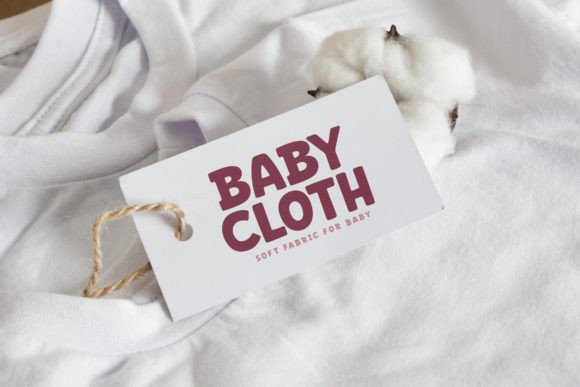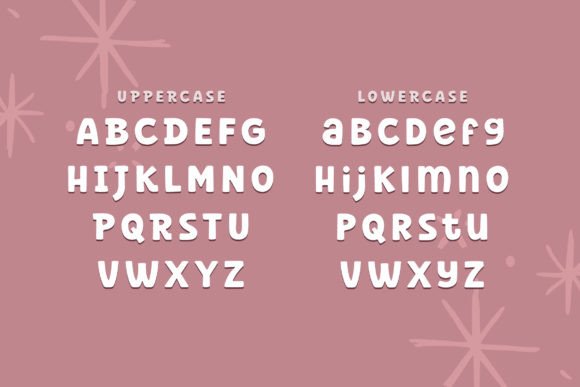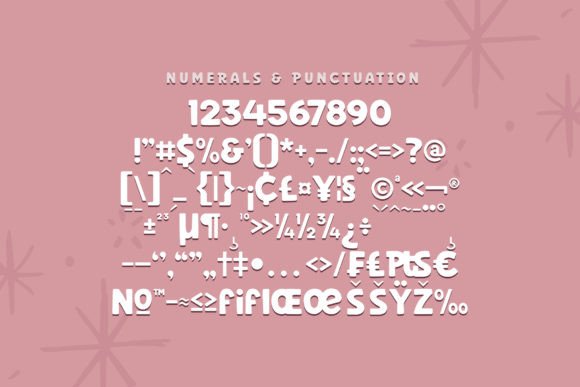
BERNARD WACKER FONT SPECIMEN
Bernard Wacker is a modern and classic slab serif font with a unique and fancy look.
This typeface is perfect for an elegant & luxury logo, book or movie title design, fashion brand, magazine, clothes, lettering, quotes, and so much more.